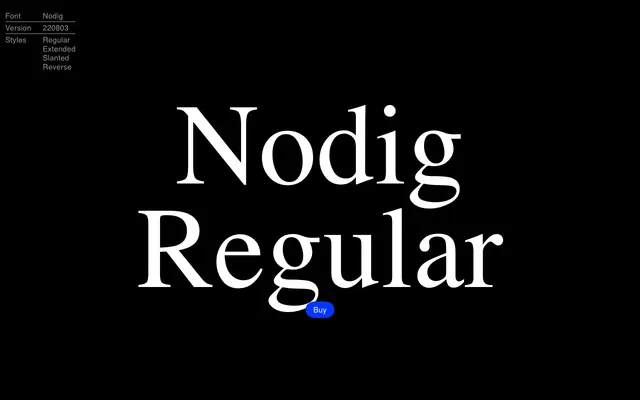
Nodig
A four-style display typeface from EPI with Regular, Extended, Slanted and Reverse cuts and a broad Latin Extended character set.
Nodig offers four stylistically distinct cuts — Regular, Extended, Slanted and Reverse — suggesting a design intended for expressive, display-scale use. The full OpenType feature set includes small caps, old-style figures, fractions, tabular numerals and multiple stylistic sets, giving it range beyond pure decorative work. Latin Extended coverage makes it usable across a wide range of European languages.
Nodig is a display typeface with four named styles including Reverse and Extended variants, suggesting a decorative or experimental character rather than a text-optimised design. Its OpenType feature set and style range point to a display-oriented sans.